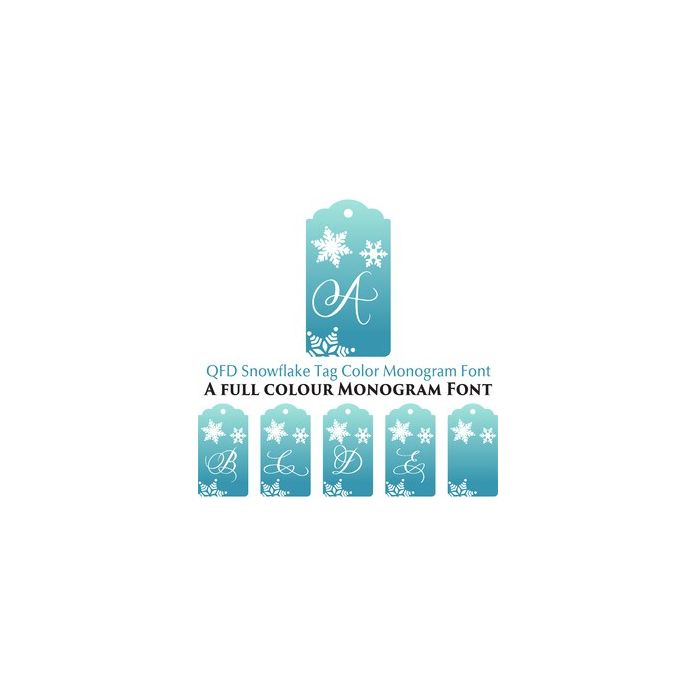
This font cuts as a tag shape, perfect for gift tags! Please note this font is compatible in Silhouette Studio and some other softwares, but will show as a filled-in solid when used with incompatible programs.